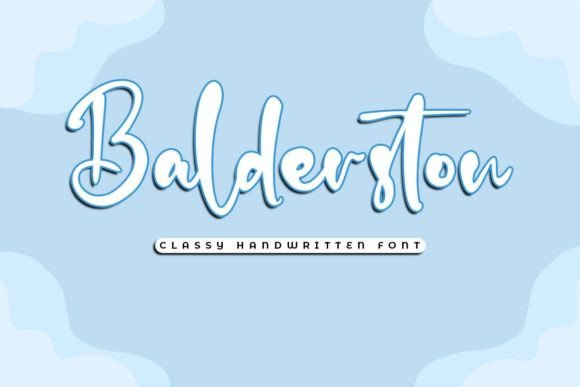
Journey into the realm of impeccable aesthetics and exquisite design with Balderston, an awe-inspiring script font that will ignite your creative spirit and captivate your audience. Bathed in the elegance of contemporary charm, Balderston beckons you to explore a world of beauty and sophistication, where your designs transcend the ordinary and embrace the extraordinary.
Crafted with the utmost attention to detail, Balderston's natural and smooth lines flow effortlessly, evoking a sense of effortless grace and timeless allure. Its every curve, every stroke, and every nuance has been meticulously designed to create a font that is both visually stunning and highly versatile.
Immerse yourself in the world of fashion and apparel, where Balderston truly shines. Let your designs take center stage as Balderston's enchanting characters dance across your creations, adding a touch of sophistication and elegance that speaks volumes. From chic clothing labels to captivating marketing campaigns, Balderston effortlessly elevates your brand, imbuing it with a sense of luxury and timeless appeal.
Step into the world of wedding invitations and stationery, where Balderston's romantic overtones create an atmosphere of enchantment and everlasting love. As your words flow across the page, adorned with Balderston's delicate strokes, they transform into a symphony of elegance, leaving a lasting impression that will be cherished for years to come.
But Balderston's talents extend far beyond the realms of fashion and matrimony. Its versatility knows no bounds, making it an ideal choice for countless other creative endeavors. Whether you're designing logos, crafting social media posts, or creating digital content that demands attention, Balderston rises to the occasion, adding a touch of magic to every project you undertake.
With Balderston by your side, you'll discover a newfound passion for design, as your imagination takes flight and your creative potential knows no limits. Let your fingertips dance across your keyboard, guided by Balderston's enchanting allure, and watch in awe as your designs take on a life of their own, captivating your audience with their beauty and grace.